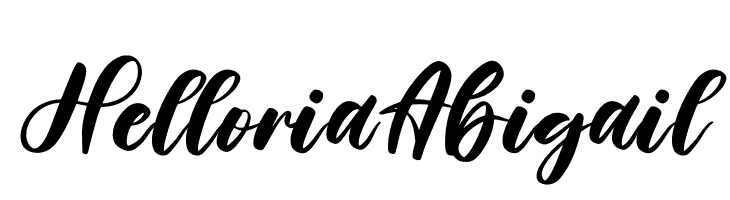
A bold, expressive handwritten font with dynamic cursive letterforms.
An elegant, flowing script font with ornate uppercase and smooth lowercase letters.
A bold and expressive script font with elegant, flowing letterforms.
A bold, flowing script font with expressive, interconnected strokes.
A flowing, cursive script font with elegant, connected strokes.
A bold, cursive font with elegant, flowing script and ornate uppercase letters.
A whimsical and elegant script font with decorative loops and smooth curves.
A playful and elegant handwritten script font with unique embellishments.